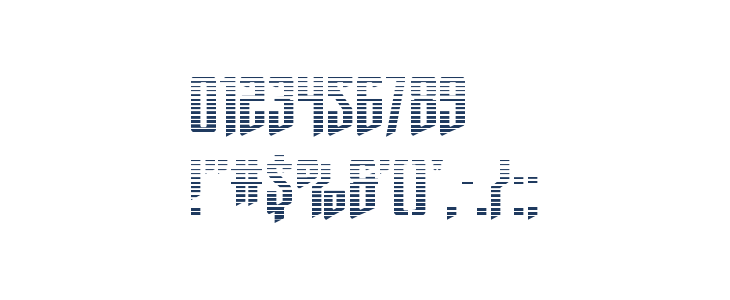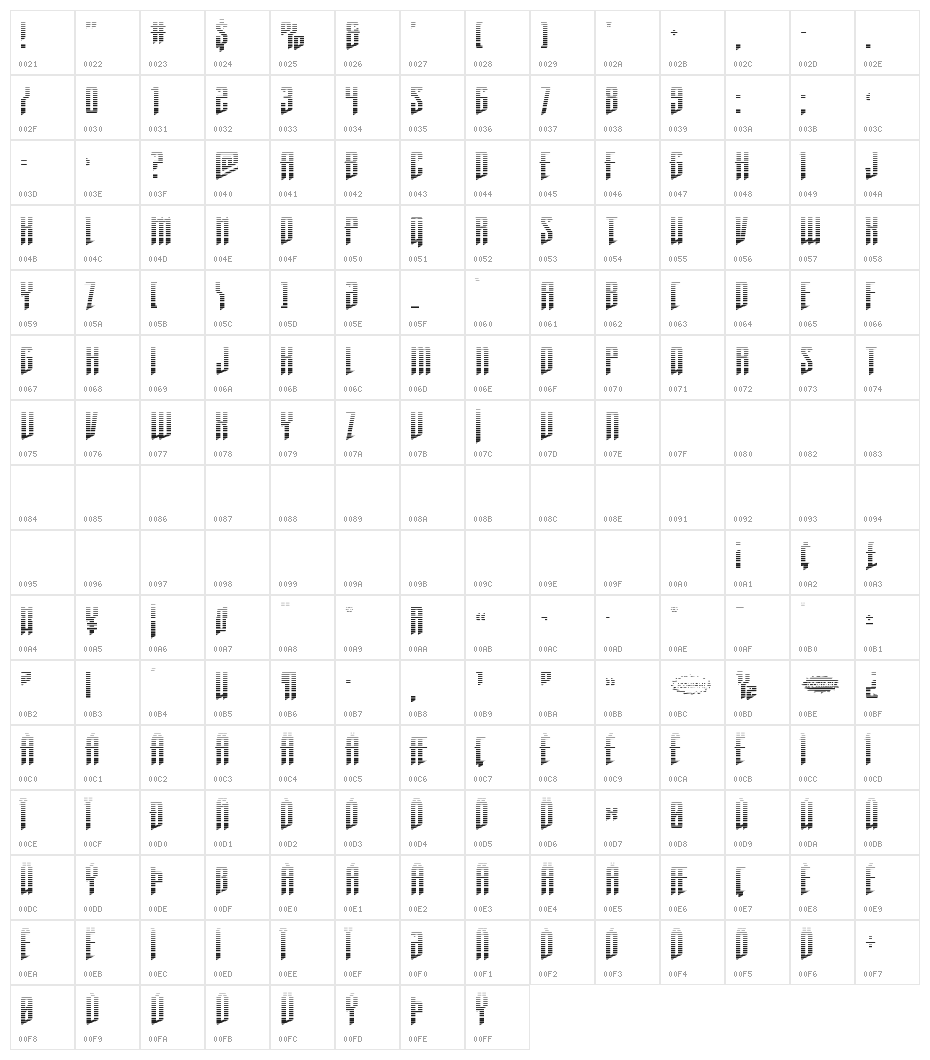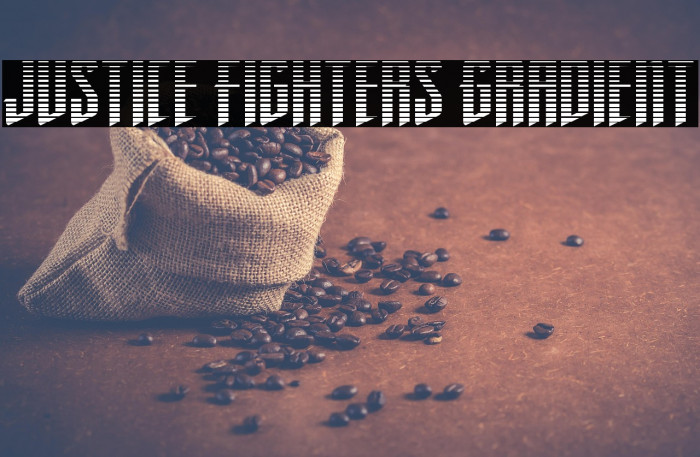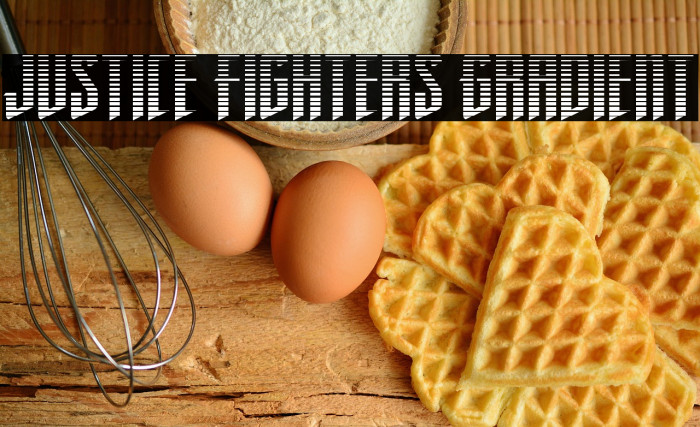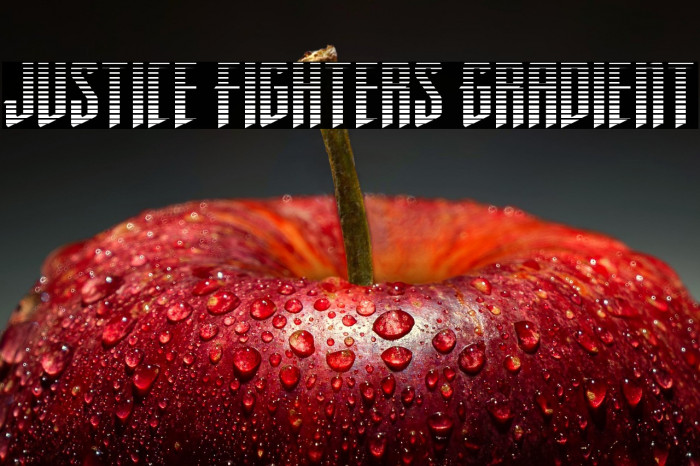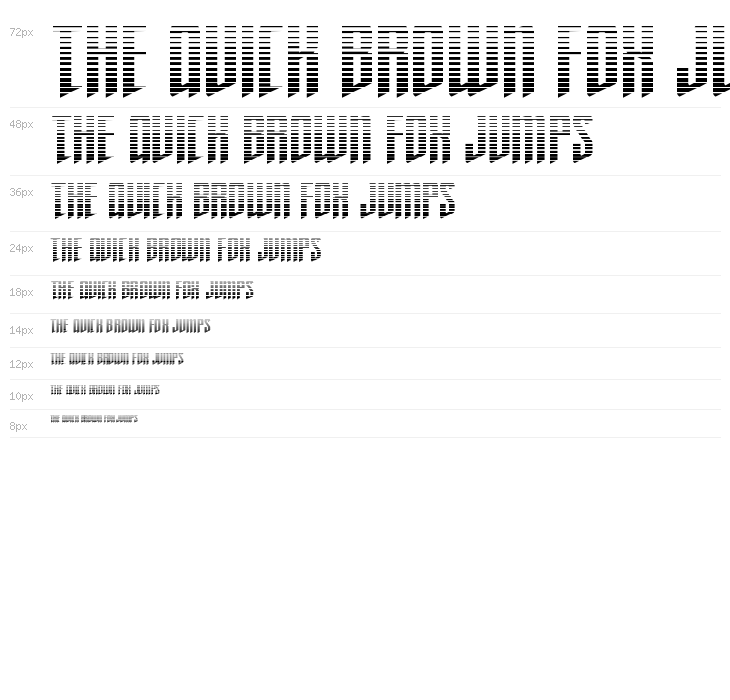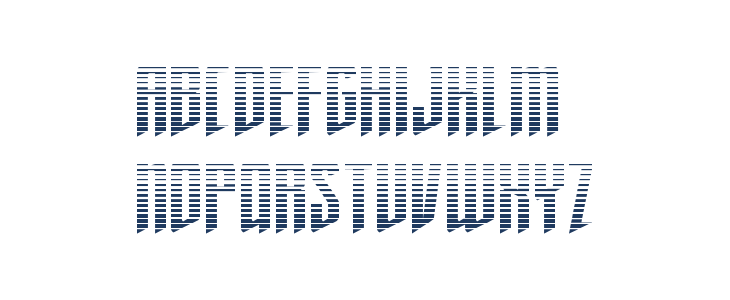
Justice Fighters Gradient Font
Justice Fighters Gradient Description
This font features a bold, dynamic design with a gradient effect that creates a sense of depth and movement. The characters are constructed with horizontal lines that give a striped appearance, adding a modern and edgy feel. The uppercase and lowercase letters maintain a consistent style, with sharp angles and clean lines. Numbers and special characters are designed to match the overall aesthetic, ensuring uniformity across all text elements. This font is ideal for projects that require a strong visual impact and a contemporary look.